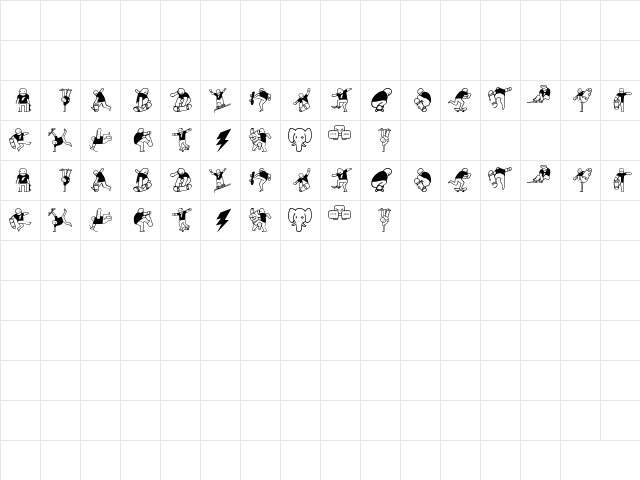
Mike vallely Regular
Design Context for Mike vallely Typeface
Mike vallely is a composed and adaptable typeface that performs quietly and consistently across a wide range of design contexts.